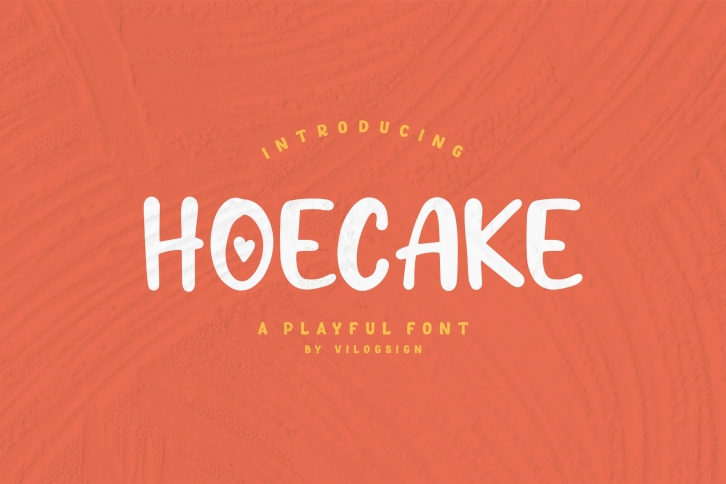
Hoecake a Playful Display is a trendy and unique font with an authentic style. It was designed by Vilogsign and it's a great choice for creative people who need such a font. It was released on August 11, 2022 and the file size is 19.16 MB. Hoecake a Playful Display will add an organic vibe to any design idea!